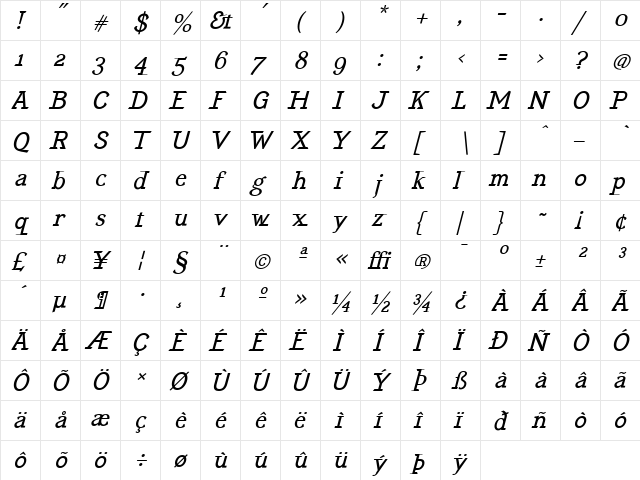
EquipoizeSerif Italic Font Preview
EquipoizeSerif Italic
Design Context for EquipoizeSerif Typeface
EquipoizeSerif brings classic typographic sensibility to the table — its serifs and measured letterforms reflect centuries of print heritage. The slanted form adds forward momentum and visual energy.